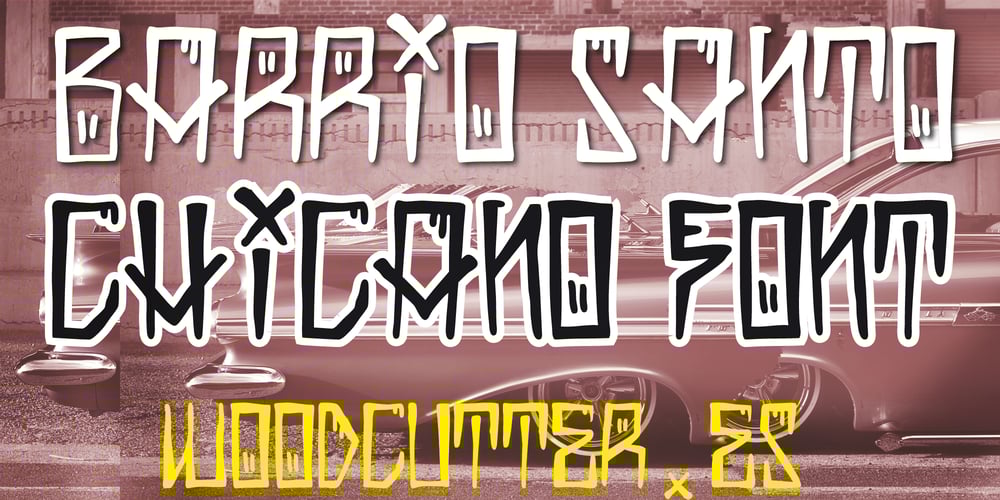
Barrio Santo Font Family was designed by Jordi Manero and published by Woodcutter. Barrio Santo contains 1 styles and family package options. “Inspired by the batos and the Chicano culture of Los Angeles, ‘Barrio Santo’ font embodies the grit, pride, and vibrant spirit of the streets. Each letter reflects the rich heritage and cultural identity of the barrio, with bold strokes and intricate details reminiscent of Chicano art. Perfect for projects seeking to capture the essence of Chicano street culture, from bold posters to urban-themed designs. ‘Barrio Santo’ infuses your designs with the raw energy and authenticity of the streets, allowing you to create visuals that resonate with the soul of the barrio.”